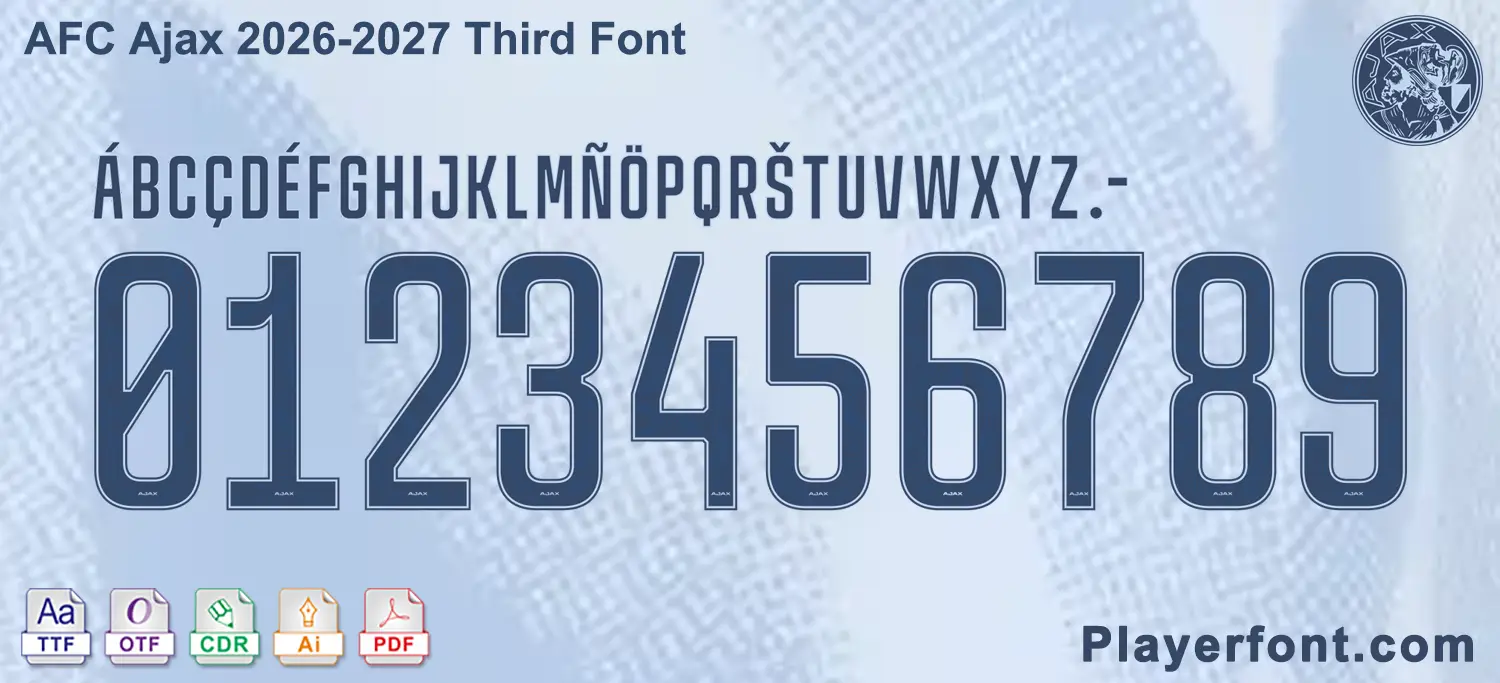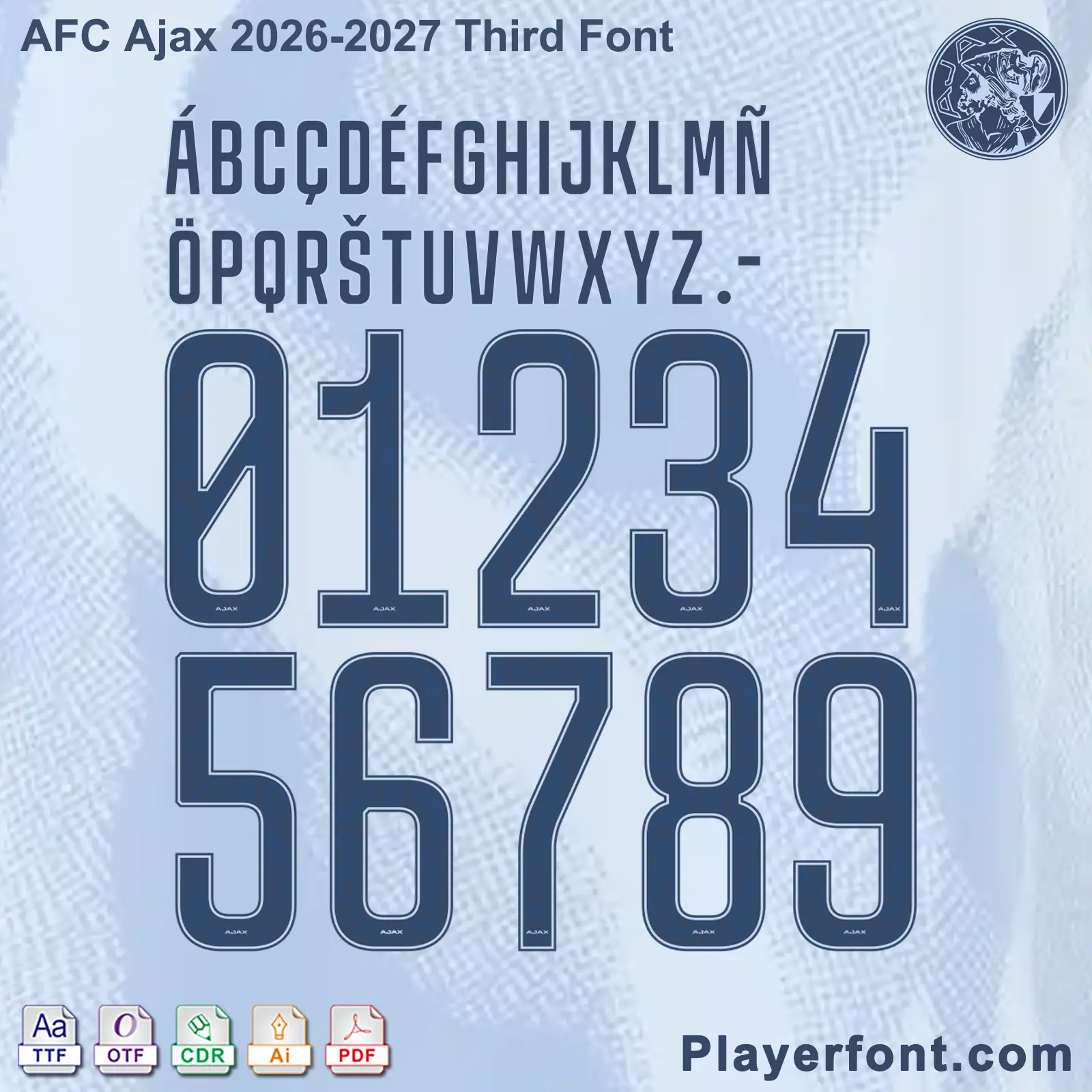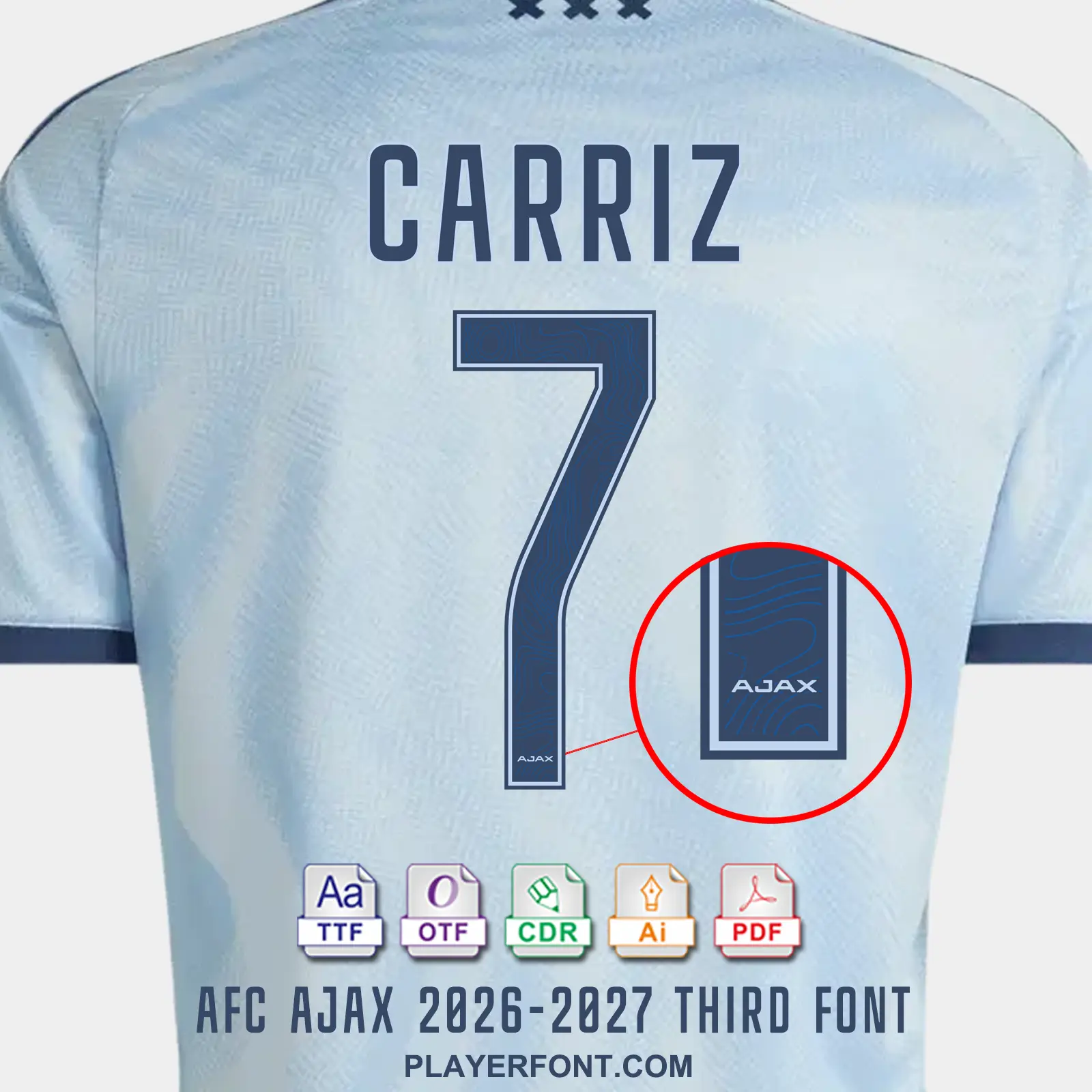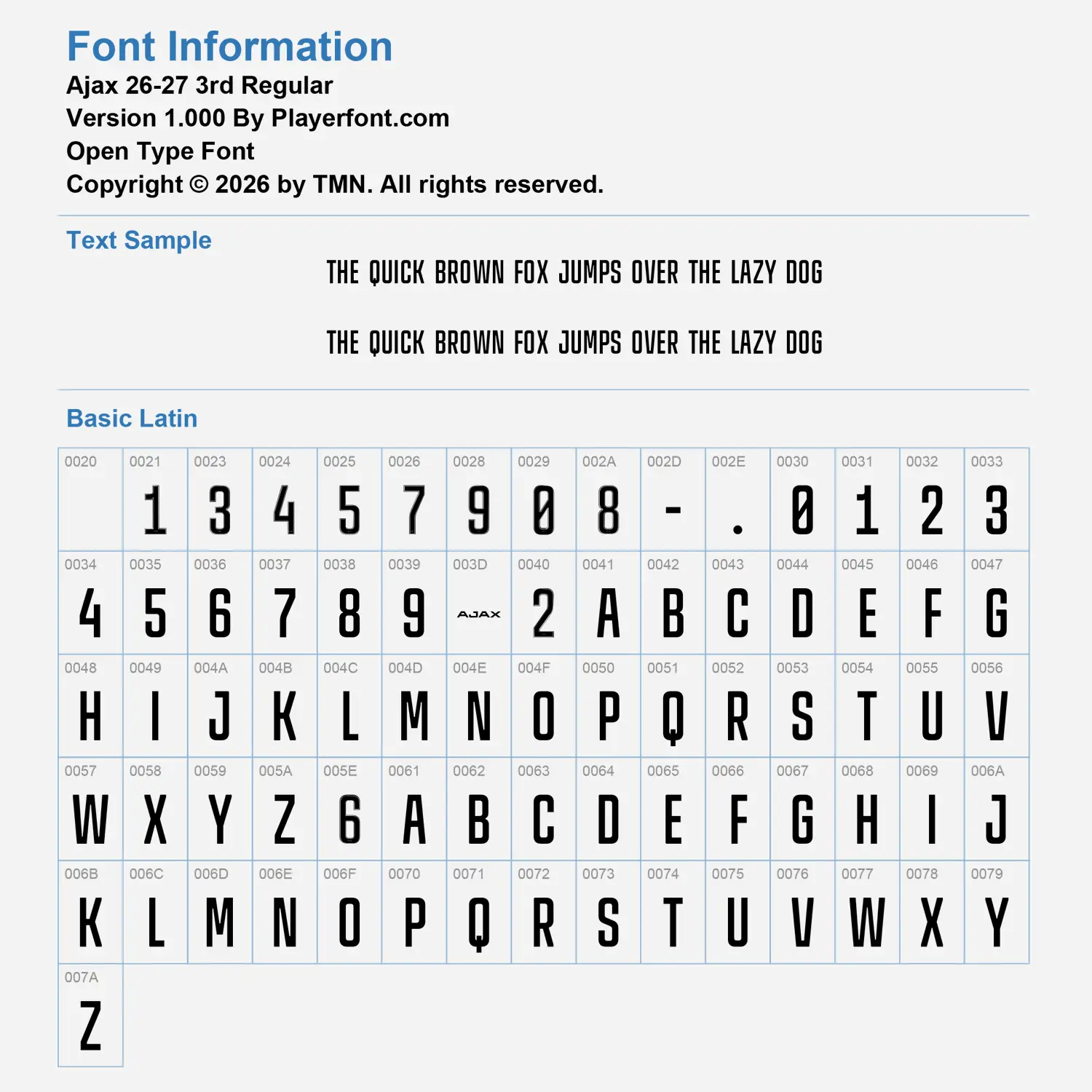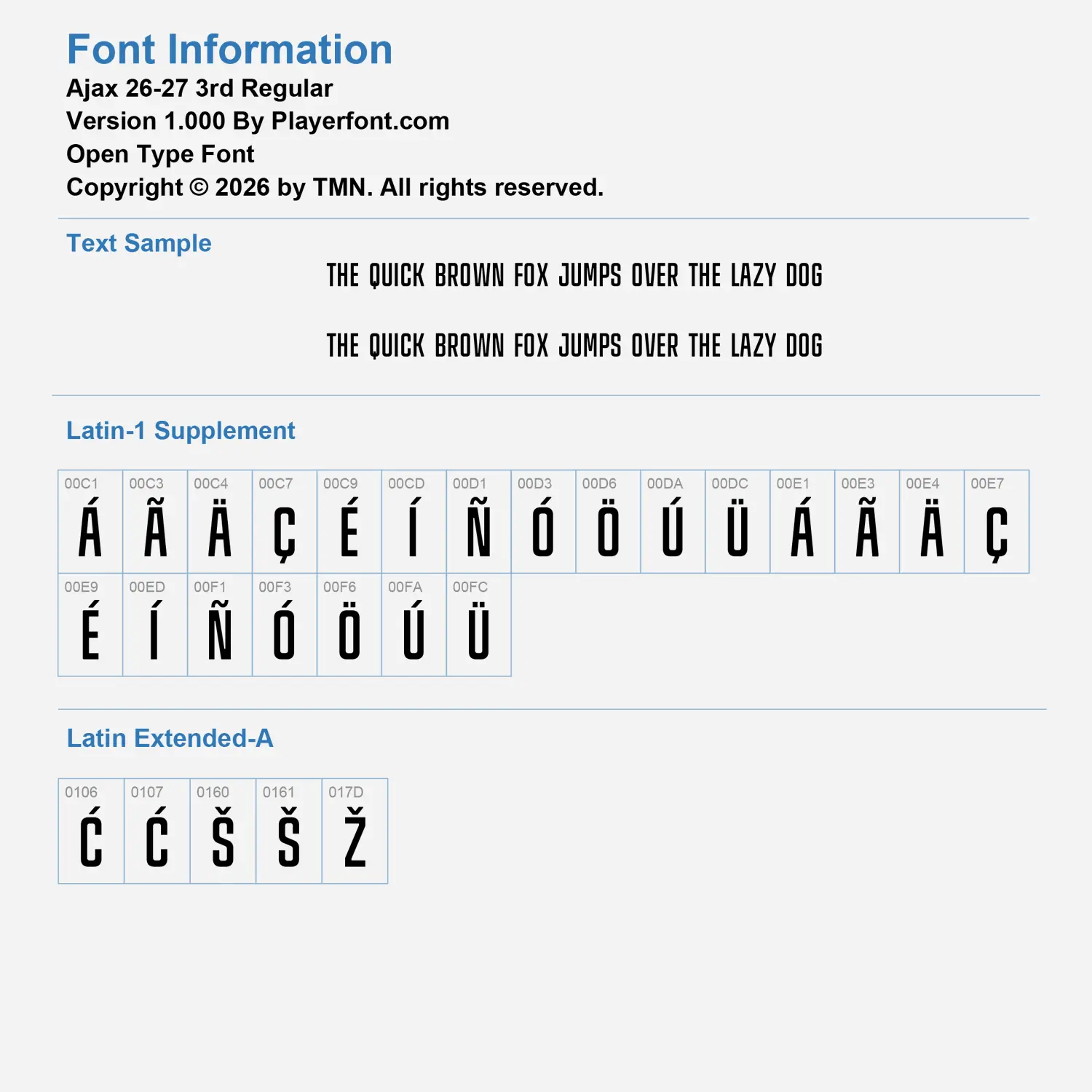
Elevate your sports design projects with the AFC Ajax 2026-2027 Third Font Kit. This font is inspired by the latest Ajax Amsterdam third jersey aesthetic, blending classic Dutch sporting heritage with a modern, condensed athletic look.
Full Character Map: Includes A-Z uppercase, 0-9 numbers, and special European characters (Á, É, Ñ, Ö, etc.).
Special Features: Numbers feature the precision-cut “AJAX” logo at the base, as seen on the official AFC Ajax kits.
Style: Condensed Sans-Serif / Athletic Block.